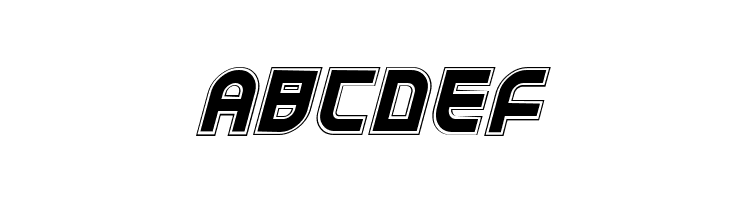
Miracle Mercury 3D Font
- Font: Miracle Mercury 3D
A futuristic, angular italic font with sharp edges and geometric shapes.
A bold, italicized font with a futuristic and angular design.
A bold, angular, and futuristic font with geometric shapes and sharp edges.
A futuristic, geometric font with bold, angular outlines and a three-dimensional look.
A futuristic, geometric font with a bold, 3D effect.
A bold, expanded, and italicized font with a futuristic and dynamic style.
A bold, futuristic font with geometric shapes and a three-dimensional outline.